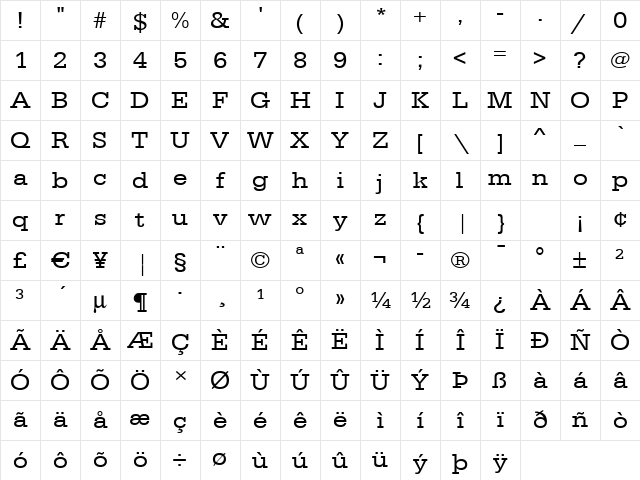
AnitaBeckerExtended Regular
Design Context for AnitaBeckerExtended
AnitaBeckerExtended is a composed and adaptable typeface that performs quietly and consistently across a wide range of design contexts.